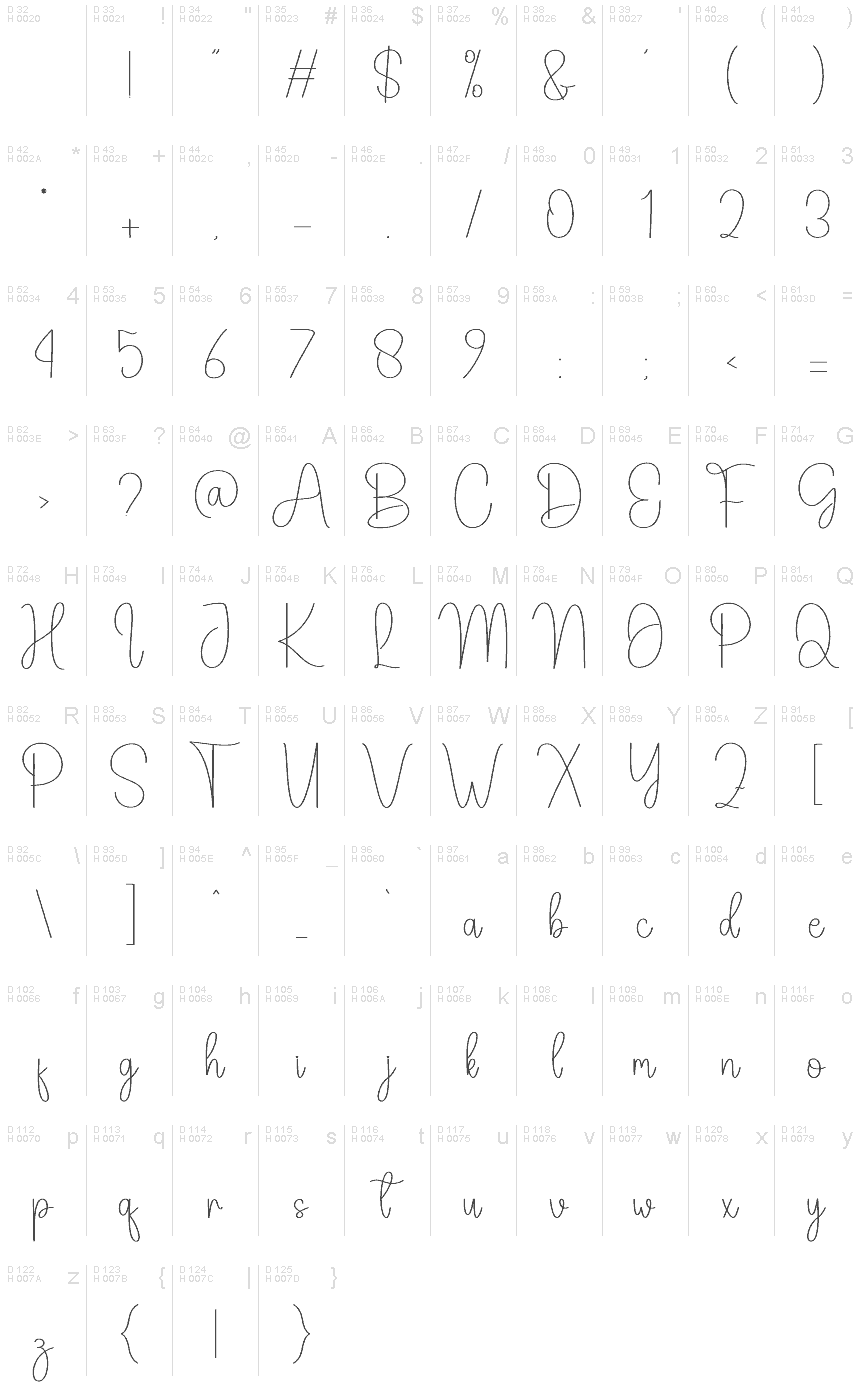
Spooky Spell
Spooky Spell font is a light handwritten font created by Andi Moz. With an elegant and whimsical touch, this airy font brings a signature script feel to any project. Ideal for contemporary applications, it seamlessly combines tradition and modernity in a wonderful piece that mimics the authenticity of human writing.
This free handwritten font works wonderfully in invitations and greeting cards, website design, branding designs, advertisements, stationery items, labels and packaging projects, posters, or magazines designs. Keep it also handy for unique headlines for blogs or print media.